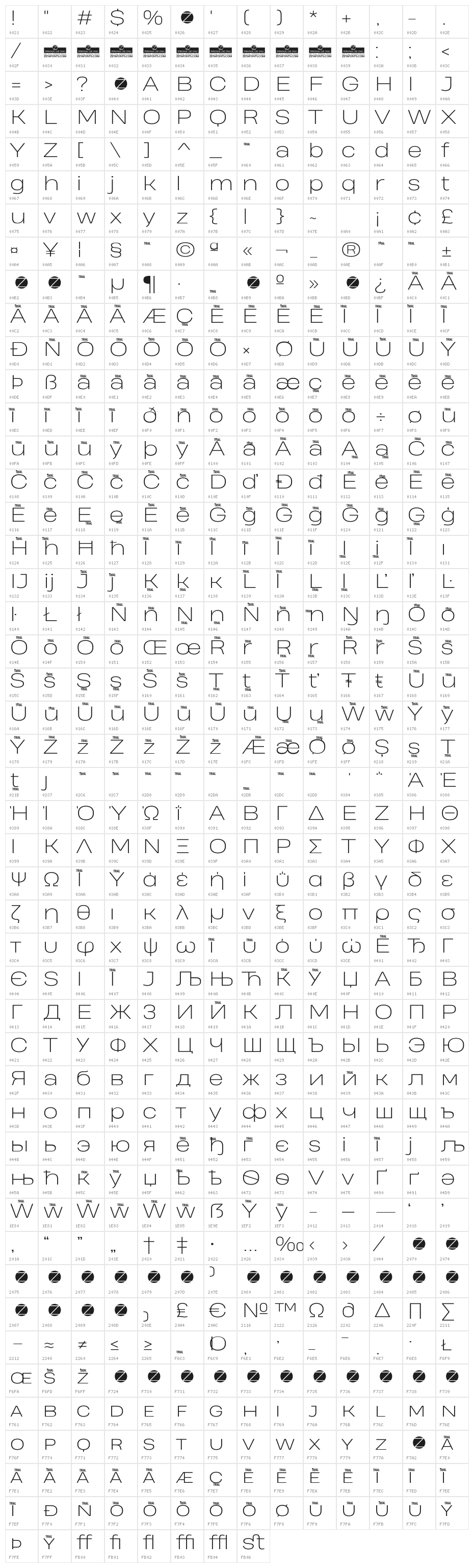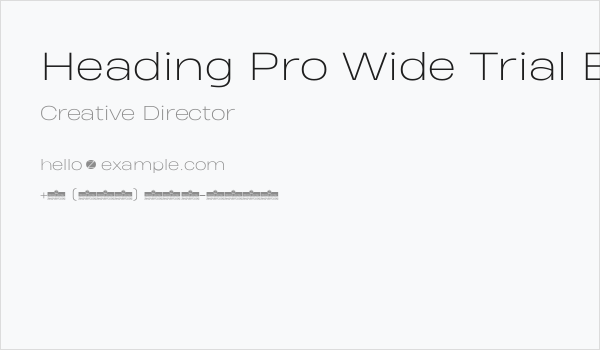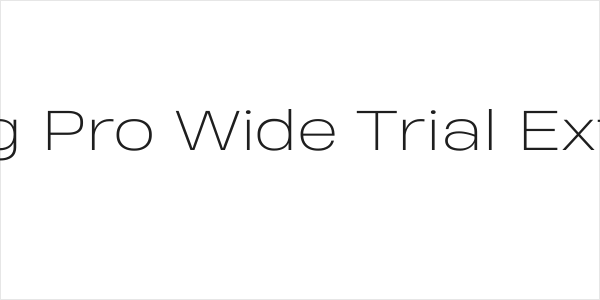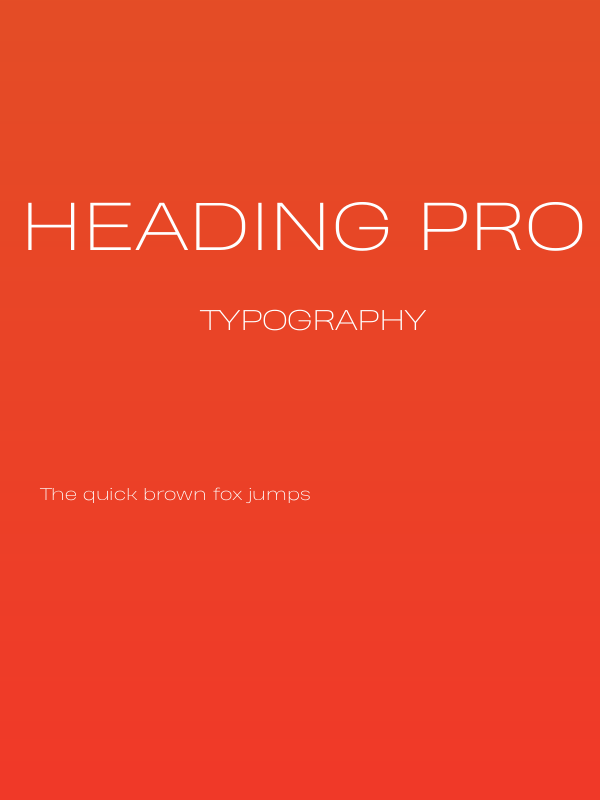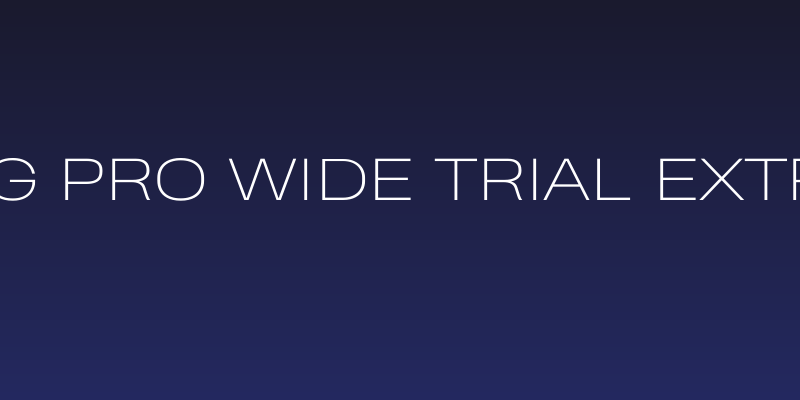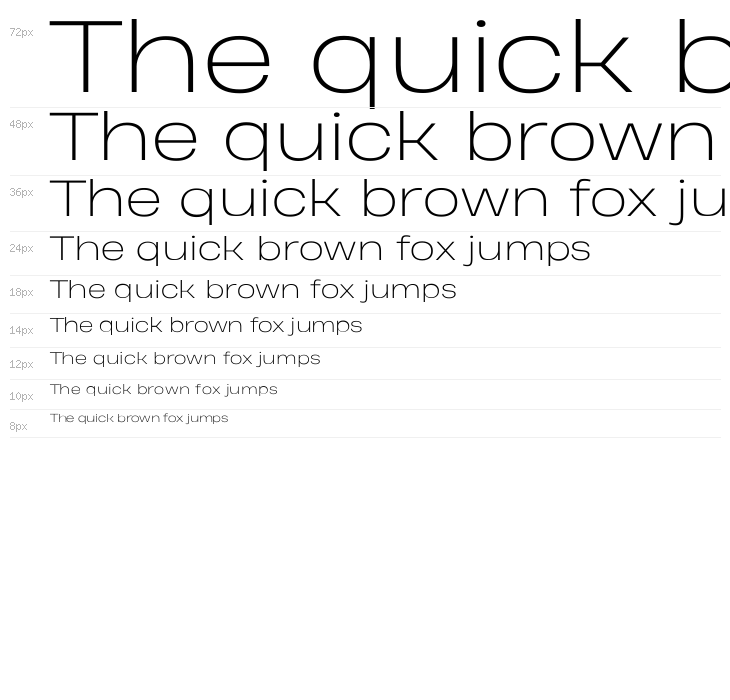
Heading Pro Wide Trial ExtraLight Font
Heading Pro Wide Trial ExtraLight Description
This font features a clean and modern design with a wide stance and extra light weight. The characters are sans-serif, providing a sleek and contemporary appearance. The uppercase and lowercase letters are well-proportioned, with a consistent line thickness that enhances readability. The numerals and special characters maintain the same minimalist style, making the font versatile for various applications. Its geometric shapes and open forms contribute to a sense of clarity and precision, ideal for modern design projects.
| Proposed Projects | Ideal for branding, web design, advertising, and editorial projects where a modern and clean aesthetic is desired. |